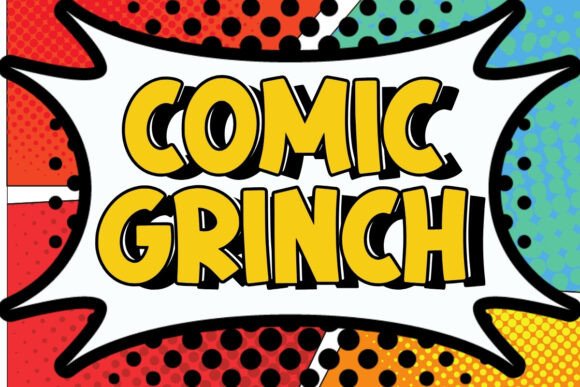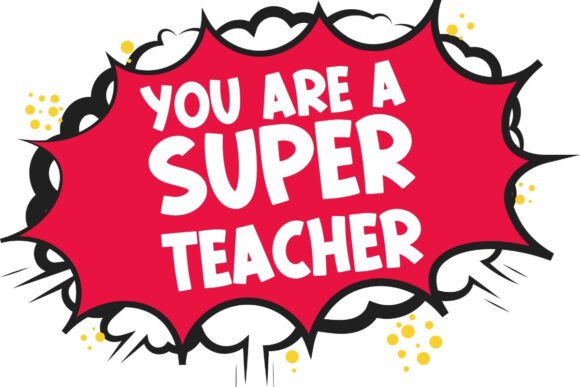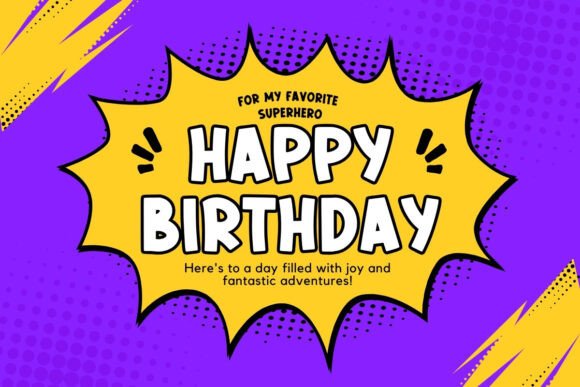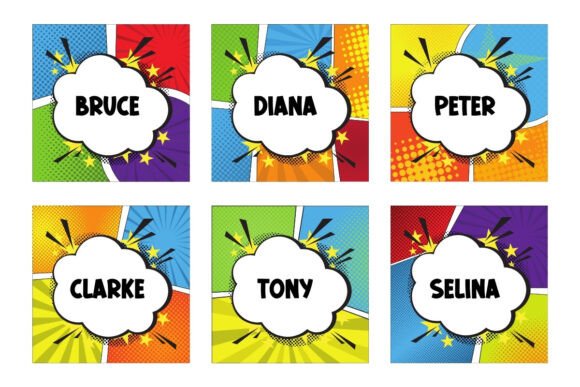
Comic Grinch Font
About the Comic Grinch Font
Elevate your designs with Comic Grinch Font, a font that combines sophistication with readability. Comic Grinch is a Beautiful display comic font that exudes fun and friendliness. It will add an incredibly joyful touch to your designs. Add this beautiful display font to each of your creative ideas and notice how it makes them stand out!
Comic Grinch’s playful energy makes it ideal for headlines, posters, and children’s book illustrations. Its friendly, cartoonish style is perfect for branding projects targeting a young or family-oriented audience, adding a touch of whimsy to logos and packaging. However, its highly decorative nature makes it unsuitable for body text or UI elements where readability is paramount.
Pairing Comic Grinch effectively requires a contrasting typeface to balance its informality. A clean sans-serif like Open Sans or a simple serif such as Merriweather would provide a strong visual counterpoint, enhancing readability in supporting text. For a more whimsical approach, consider pairing it with a playful script font, but use it sparingly to avoid overwhelming the design.
The font’s overall personality is undeniably bold and friendly. It’s best suited for projects that prioritize a lighthearted and approachable aesthetic.
Comic Grinch Font Usage Examples
Comic Grinch Font Example